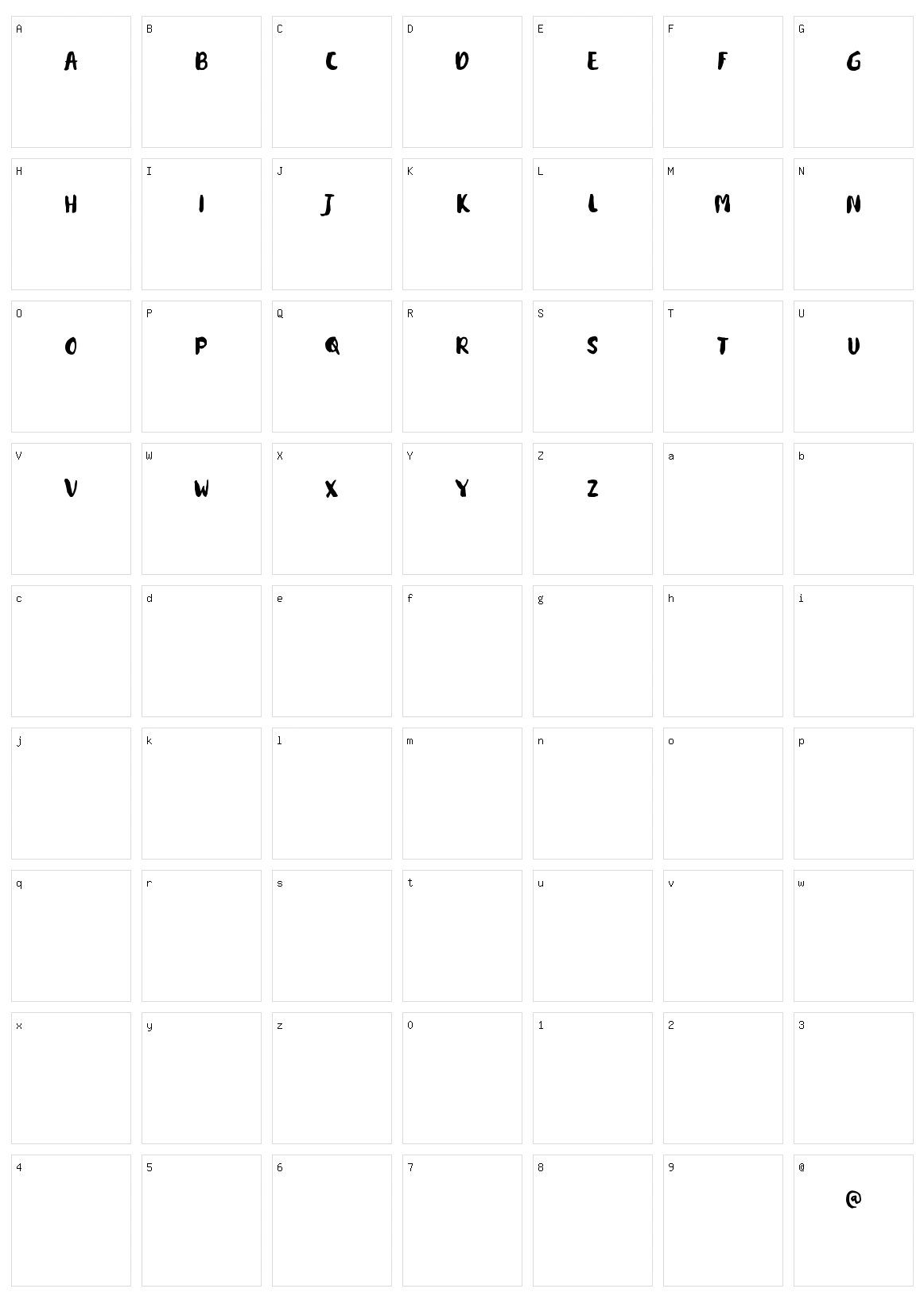
The free font Kitadari is carefully designed by VitaminRGB, showcasing a thoughtful balance of creativity and usability and falls under the Script font style. When you download the ZIP file, it contains only 11.66 KB of font files, making it lightweight and quick to download. Please review the license details below to understand permitted usage and distribution rights. If license information is not available, we recommend using this font for personal projects only or contacting the author directly for commercial usage permissions.